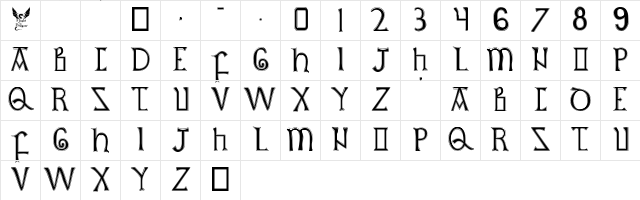
British Outline Majuscules Regular
Design Context for British Outline Majuscules Typeface
British Outline Majuscules is built around its visual character rather than neutral utility — its distinctive forms are designed to make an impression at display sizes.
Font Pairing: Pair with a clean neutral sans-serif for body copy to let British Outline Majuscules's character lead without overwhelming the composition.
Pro Tip: Treat British Outline Majuscules as the centrepiece of your typographic hierarchy. One strong heading set in a decorative face can carry an entire layout.